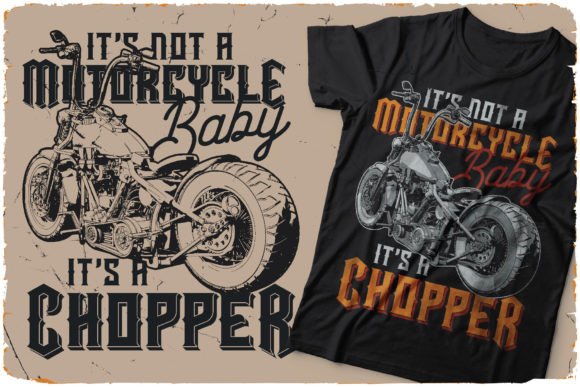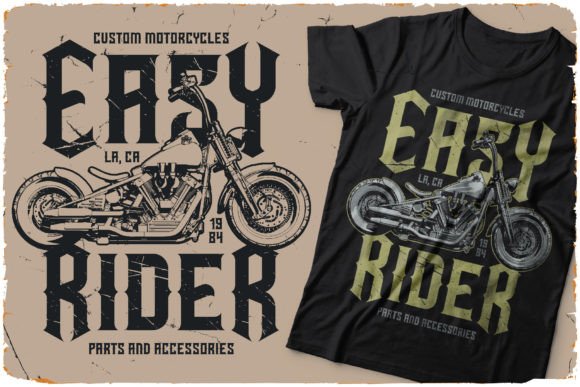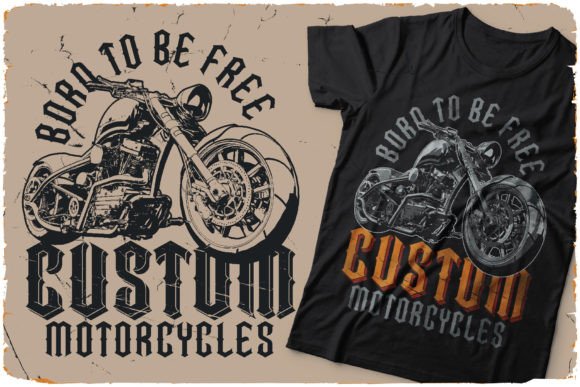
Introduction to Hell Rider Font Font
Fonts play a crucial role in design, and the Hell Rider Font font is a typeface that brings both character and versatility to any project. Whether you’re working on a branding project, a website, or a print design, the Hell Rider Font font offers a unique style that can elevate your work.
Meet Hell Rider, a vintage label font that embodies the rugged spirit of the open road.
With its weathered edges and bold lettering, Hell Rider adds a touch of nostalgia and adventure to your designs Whether youβre crafting classic labels, vintage-inspired packaging, or retro posters, this font revs up the authenticity and gives your projects a timeless, rebellious charm.
Key Features of Hell Rider Font Font
Why Choose Hell Rider Font Font?
The Hell Rider Font font is more than just a typeface β it’s a design tool that helps you communicate your message with style and clarity. Its unique character set and versatile design make it suitable for a wide range of applications, from elegant invitations to bold headlines.
With its carefully crafted letterforms and balanced proportions, the Hell Rider Font font ensures readability and visual appeal across all mediums.
What makes Hell Rider Font font special?
The Hell Rider Font font stands out with its unique design, exceptional readability, and versatility across various design applications.